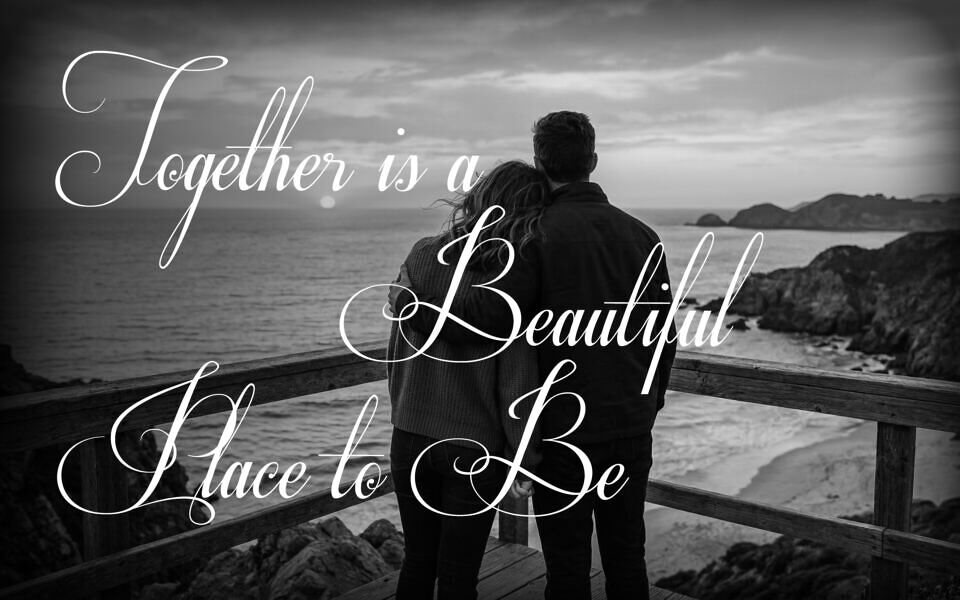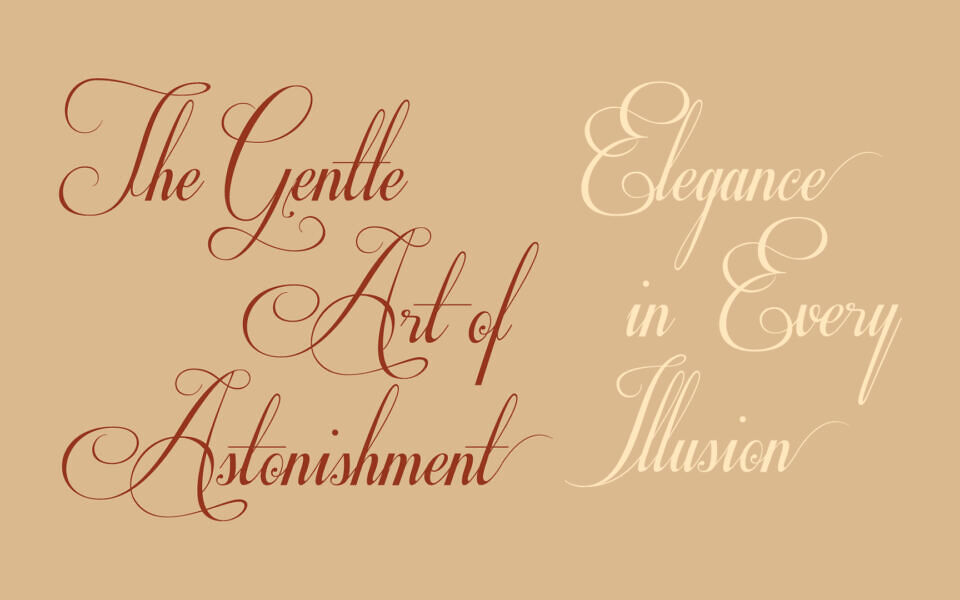
Respective is a decorative formal script font. The font is built with advanced OpenType functionality and has a guaranteed top-notch quality, containing stylistic and contextual alternates, ligatures, and more features; all to give you full control and customizability.
It has extensive lingual support, covering all Latin-based languages, from Northern Europe to South Africa, from America to South-East Asia. It contains all characters and symbols you’ll ever need, including all punctuation and numbers.